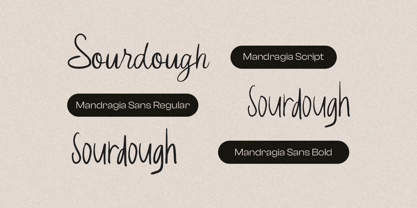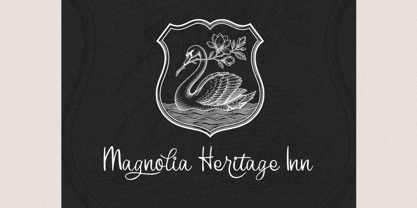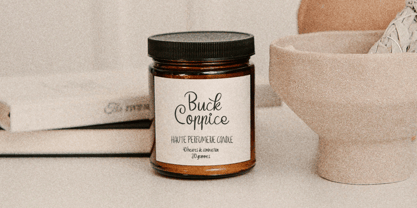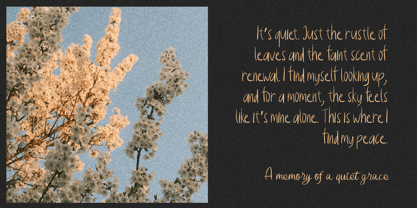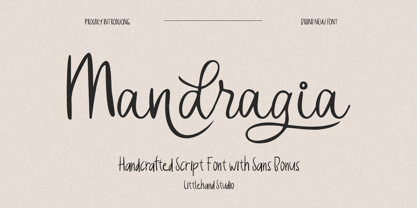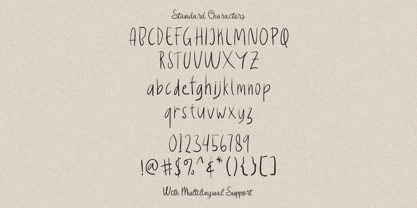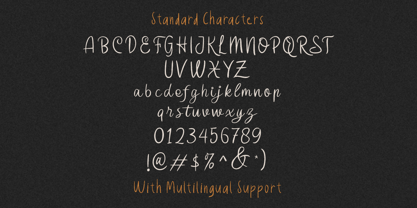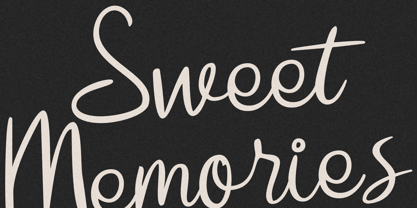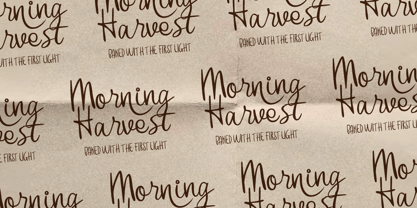
Mandragia
by Littlehand
The Mandragia Font Family was designed by Aryo Pamungkas and published by Littlehand. Mandragia contains 3 styles and family package options. More about this family
Mandragia feels like a quiet signature with a soft, natural flow—smooth, relaxed, and effortlessly stylish. This handcrafted script carries gentle curves, slightly imperfect strokes, and a human touch that makes every word feel warm and real, like it was written with intention. Paired with a clean sans bonus, perfect for branding, invitations, packaging, or calm lifestyle visuals that lean into a modern, down-to-earth vibe. Features : Uppercase & lowercase Numbers and punctuation Alternates & Ligatures Multilingual Support PUA encoded